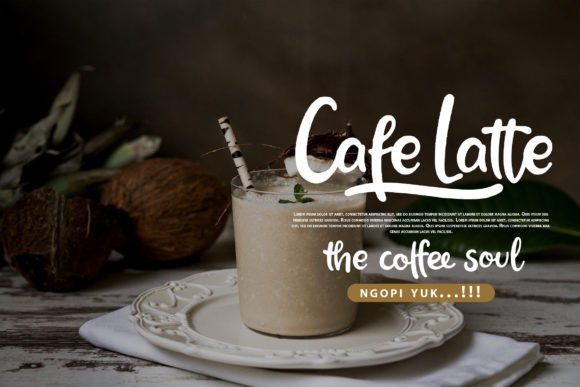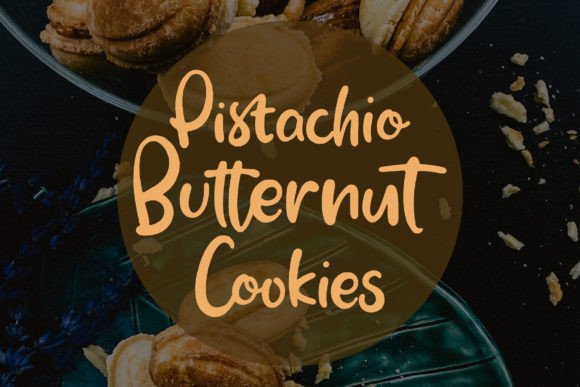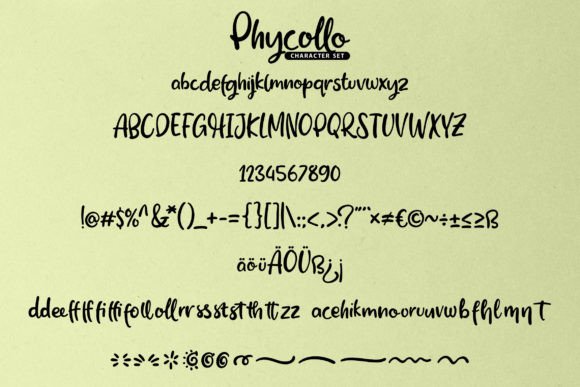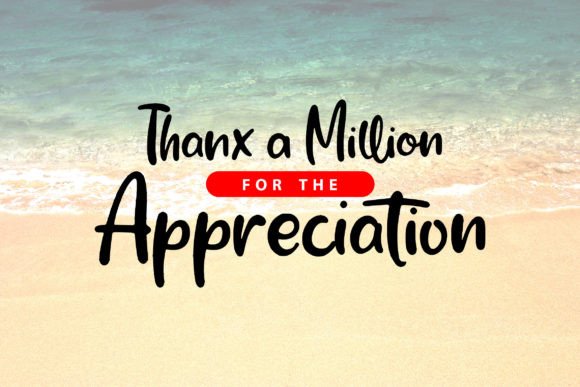
Introduction to Phycollo Font
Phycollo is a playful handwritten font with a calligraphy style.
It will look so beautiful on invitations like greeting cards, branding materials, business cards, quotes, posters, and more This font is PUA encoded, which means you can access all of the glyphs and swashes with ease.
Key Features of Phycollo Font